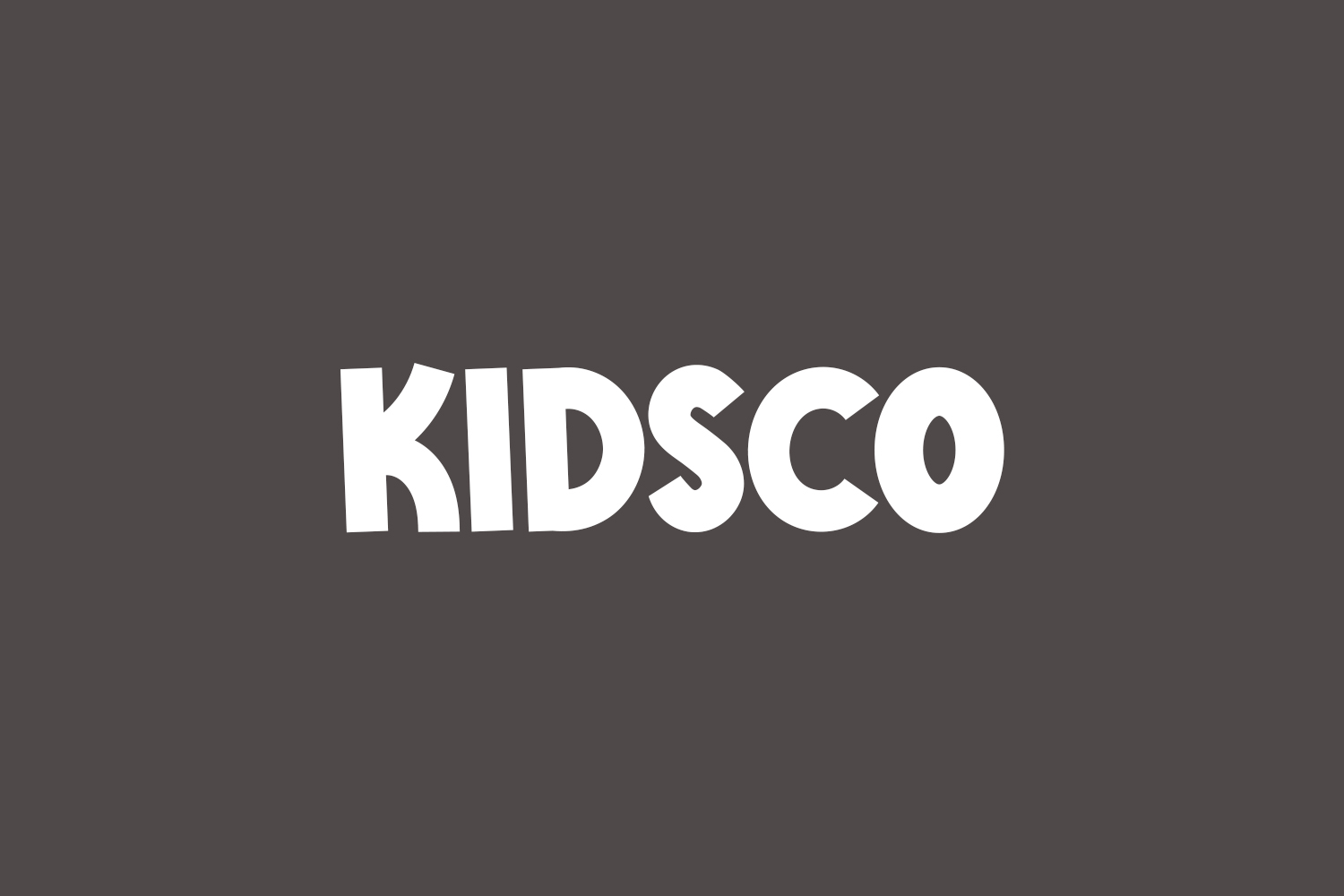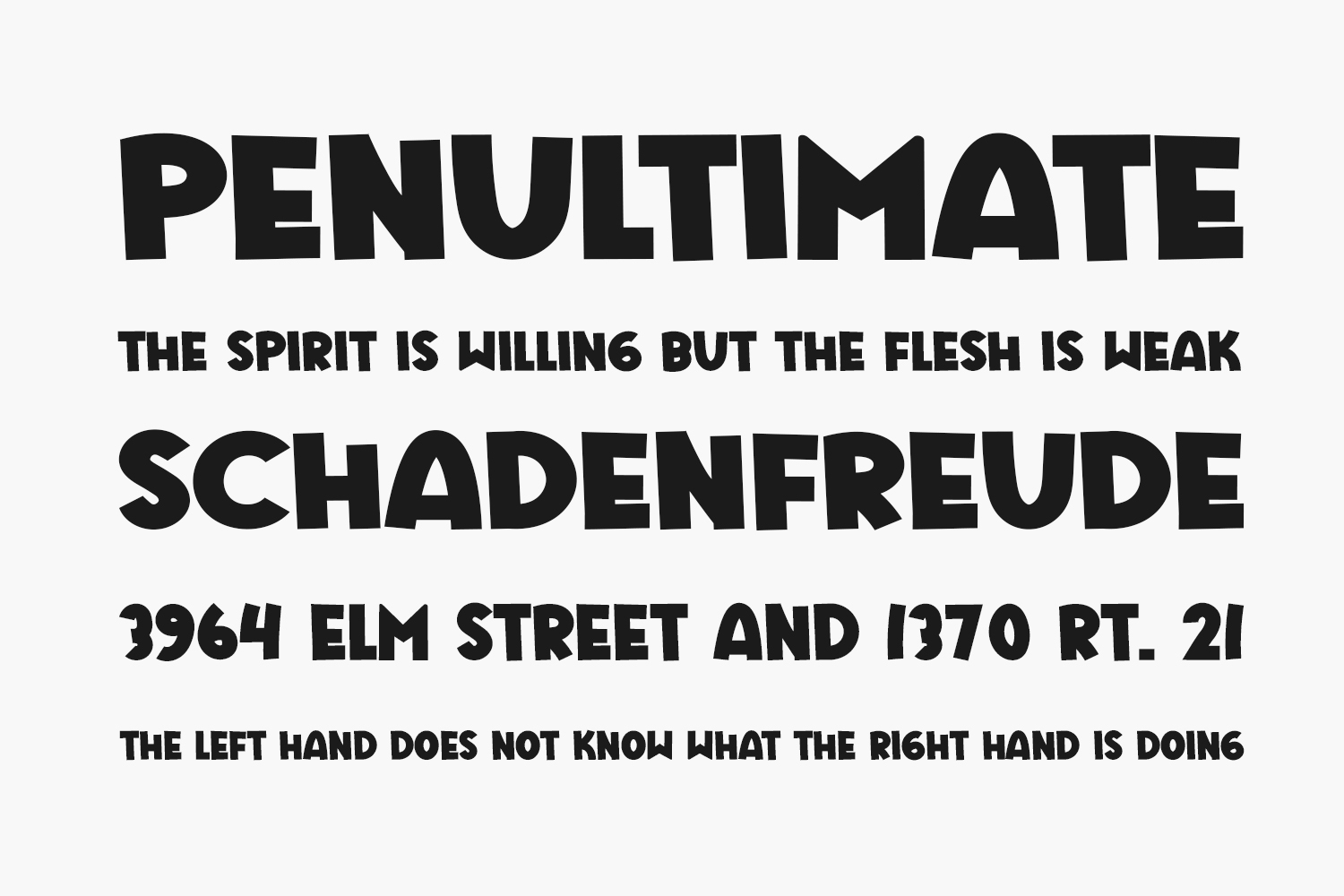
Kidsco Free Font is a bold and thick lettered display font. This font is perfect for children themed designs, especially when combined with bright colors. Kidsco Free Font was designed by Hamsah and is free for personal use only. Please purchase the full version for commercial use.